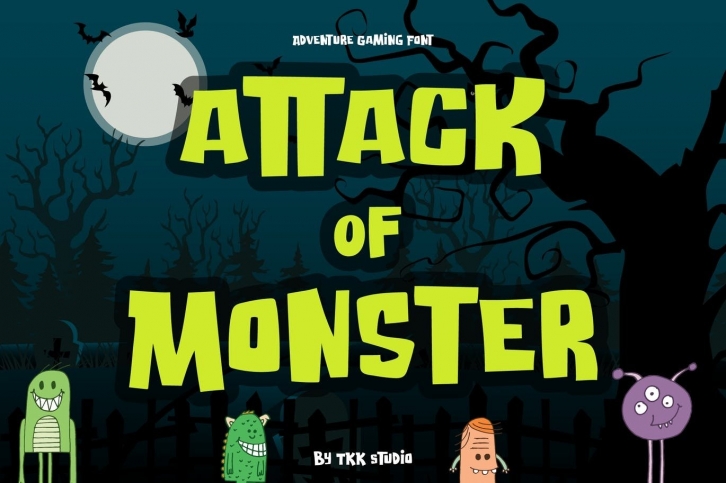
Attack of Monster is a great font that was designed by Tokokoo Studio. Imagine the amount of combinations you can create using this font! The archive is 3.43 MB and it was released on February 16, 2021. Attack of Monster looks beautiful on wedding invitations, greeting cards, logos, posters, labels, t-shirt designs, logos, business cards and is perfect for use in ink or watercolor works, fashion, magazines, packaging and food menus, children's books and more!